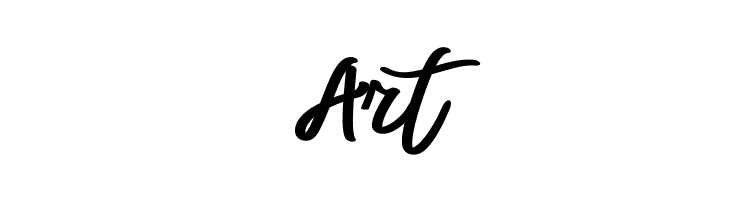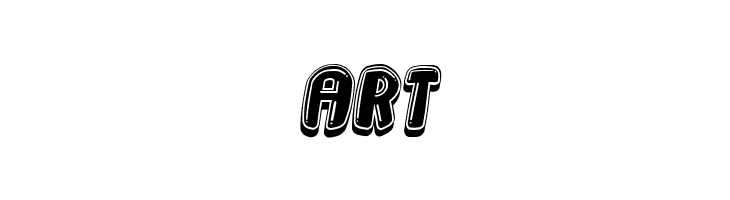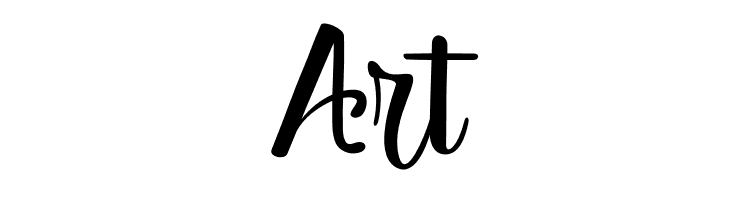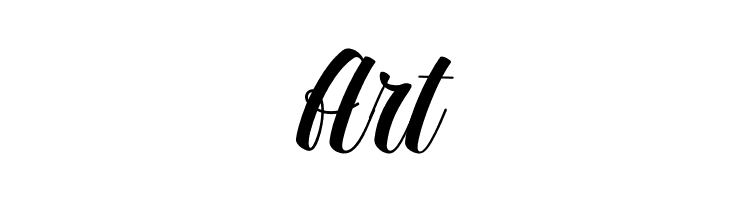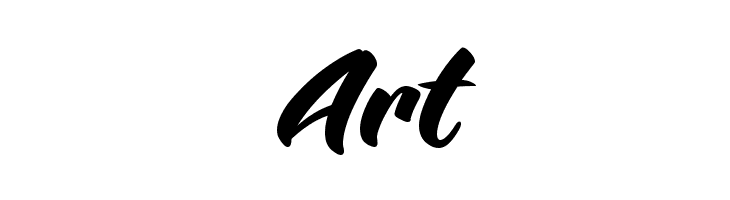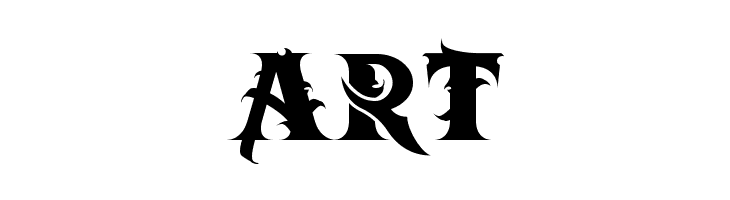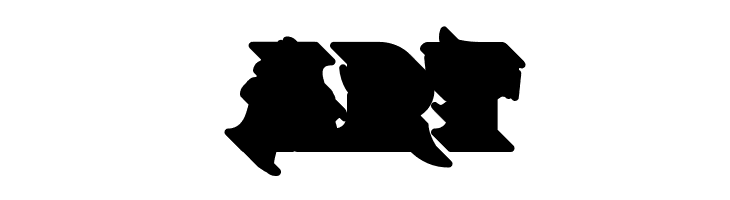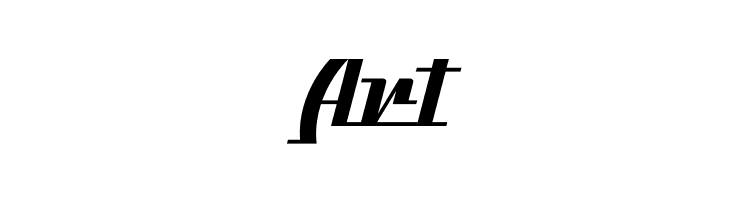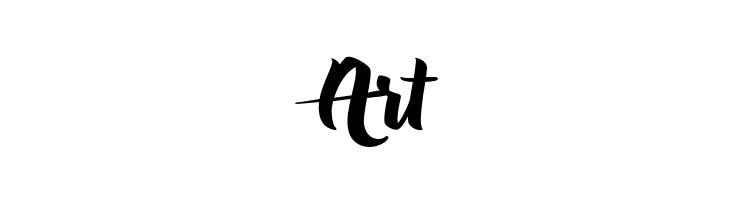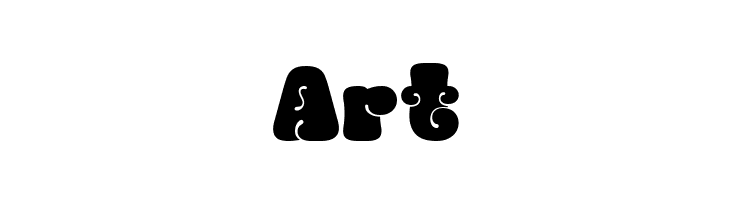
A bold, brush-style font with an artistic and hand-drawn appearance.
A playful, handwritten font with uneven strokes and a casual style.
A playful, handwritten font with bold strokes and an informal style.
A modern, geometric sans-serif font with balanced proportions and clear readability.
A bold blackletter font with sharp, angular lines and dramatic serifs.
A bold, flowing script font with a modern and energetic style.
A bold, Gothic-inspired font with intricate flourishes and sharp edges.
A bold, slanted font with a geometric, futuristic style.
A bold, expressive script font with fluid, cursive strokes.
A cursive, handwritten font with elegant curves and a dynamic flow.
A bold, gothic-inspired font with intricate, ornamental details.
A bold, shadowed display font with a dramatic and dynamic style.
An elegant script font with flowing, cursive strokes and decorative flourishes.
A dynamic, angular font with a forward-leaning, fluid design.
An elegant and flowing script font with high contrast and graceful letterforms.
A modern, cursive font with interconnected letters and a flowing style.
A flowing, cursive script font with elegant loops and a handwritten style.
A dynamic and elegant script font with a modern, handwritten style.
A flowing, cursive font with elegant curves and a handwritten aesthetic.
A playful and dynamic script font with a handwritten feel.
A playful, bold font with a bubbly, retro style.
A playful, bold font with rounded, comic-style letterforms and a three-dimensional effect.
A bold, decorative font with gothic and bubble-like elements, featuring high contrast and intricate detailing.
A bold, dynamic font with a playful, three-dimensional bubble-like style.
A bold, three-dimensional font with a playful and dynamic appearance.
A playful, bold font with a bubble-like, glossy appearance.
A playful, bubbly font with rounded characters and a whimsical style.
A playful, bubbly font with smooth, rounded characters.
A playful, casual handwritten font with smooth, rounded edges.
A flowing cursive font with elegant curves and loops.
Decorative swashes and flourishes with intricate, elegant lines.
A whimsical, cartoon-like font with unique character designs for each letter.
A playful, bold font with rounded edges and a slightly condensed form.